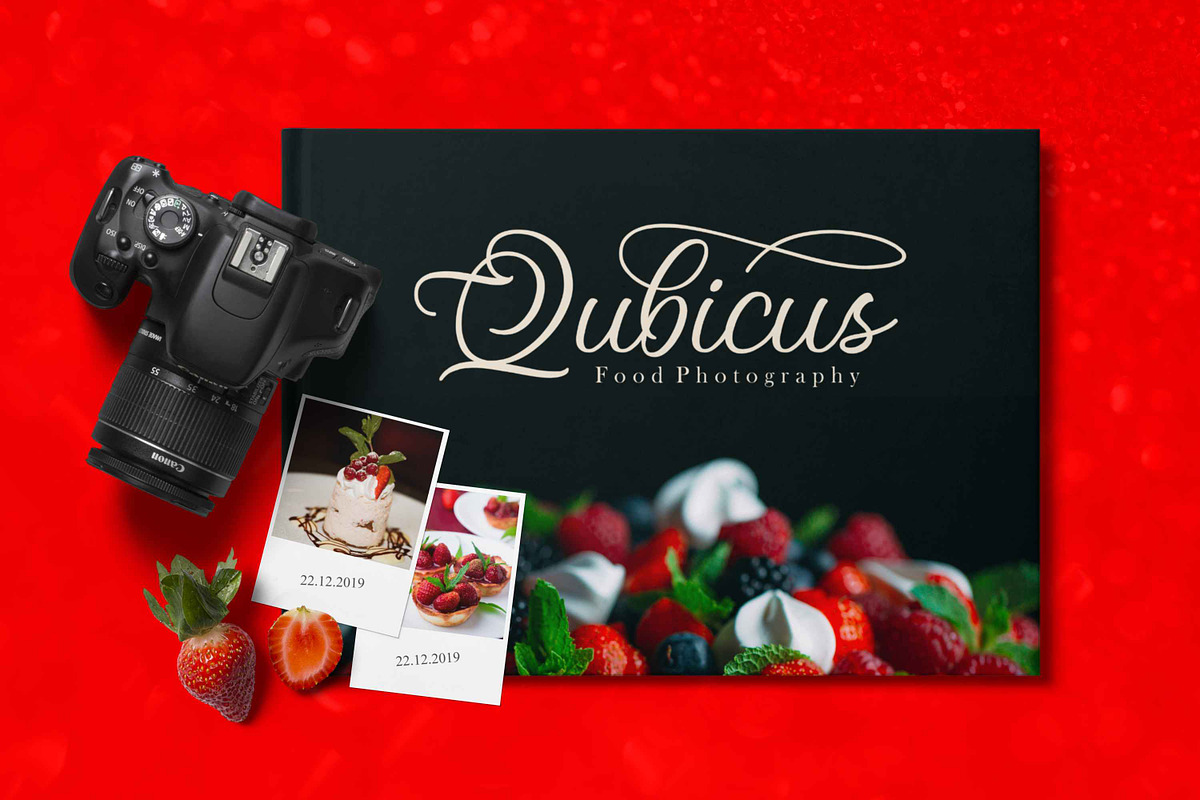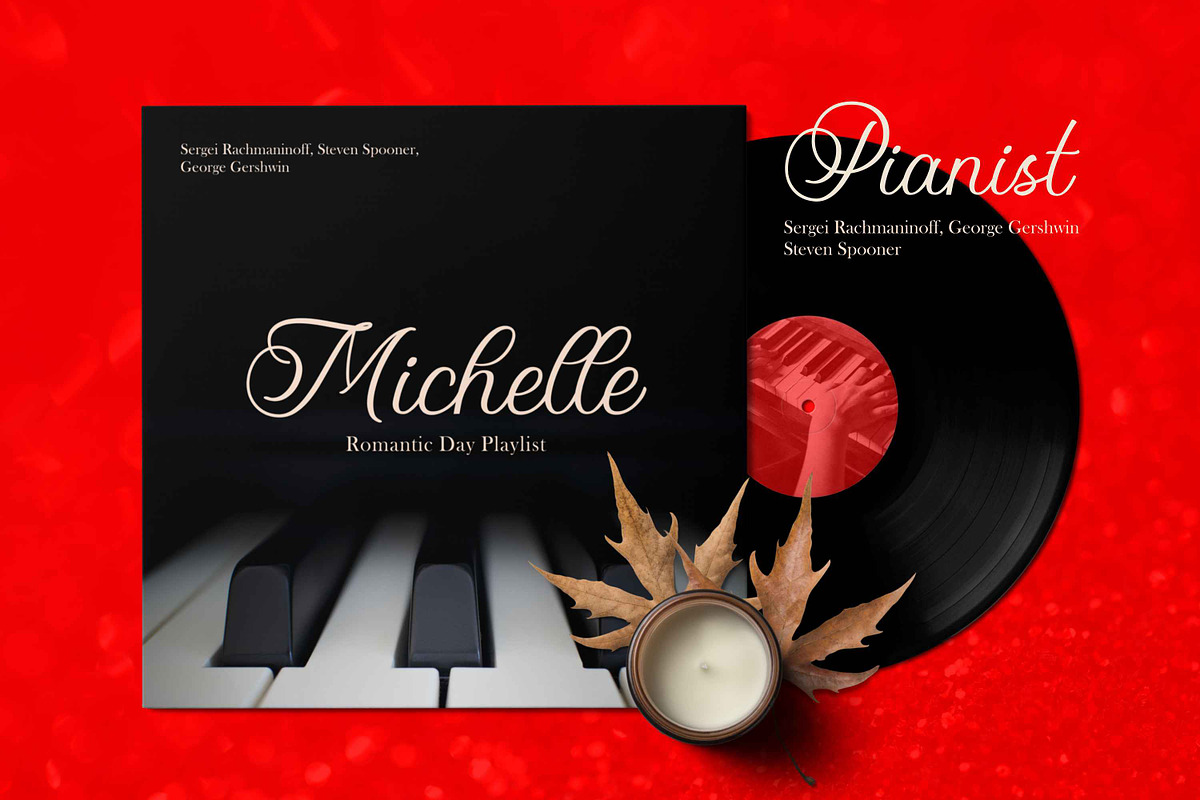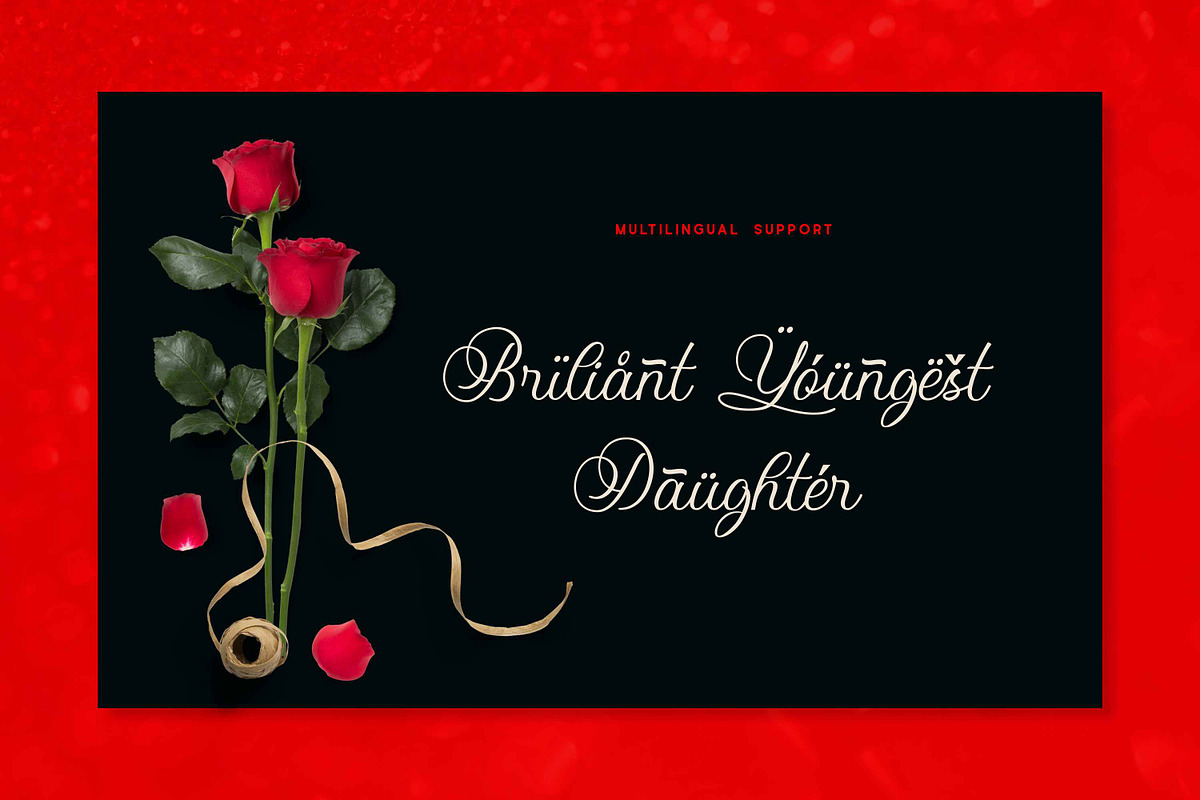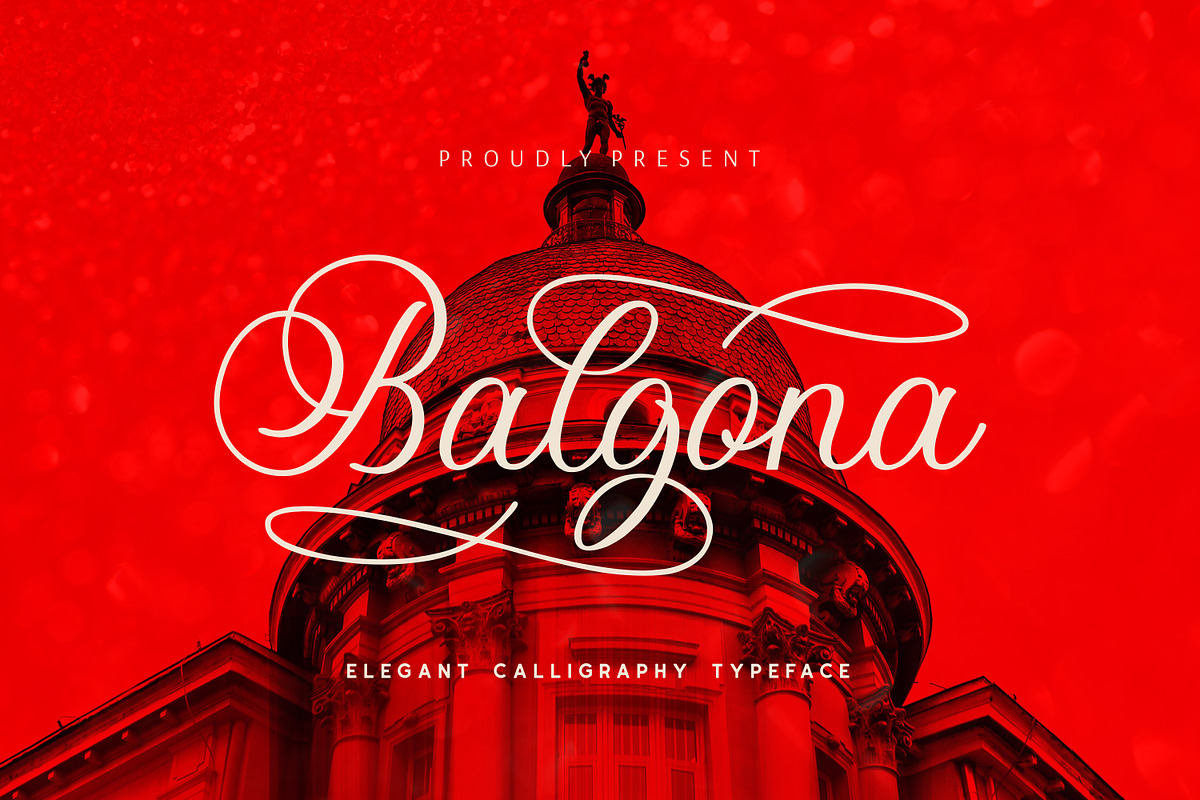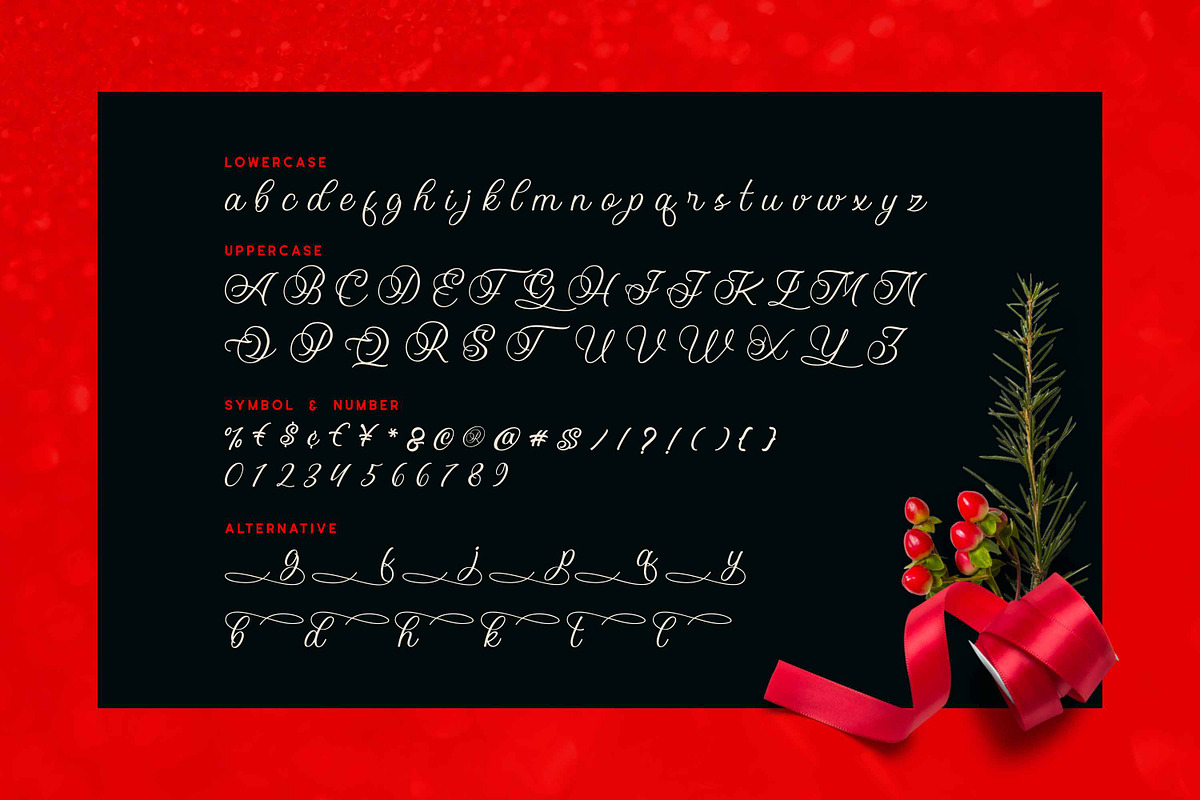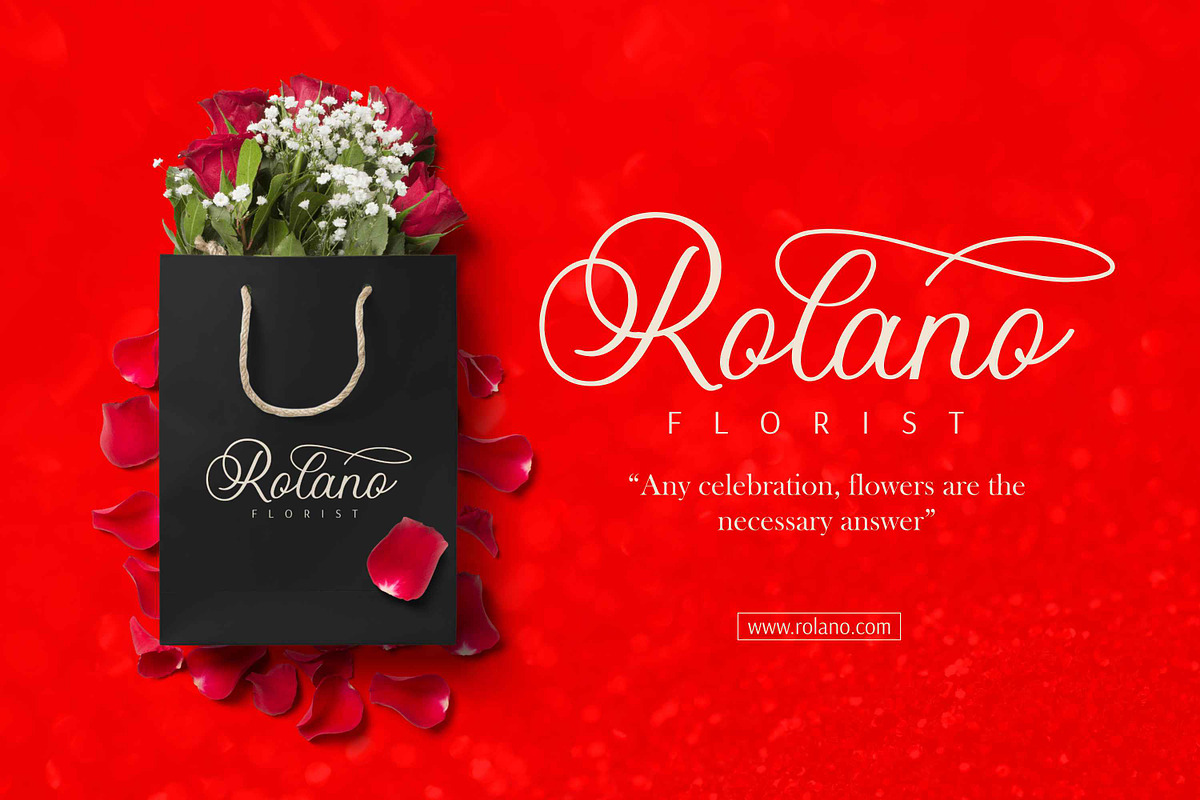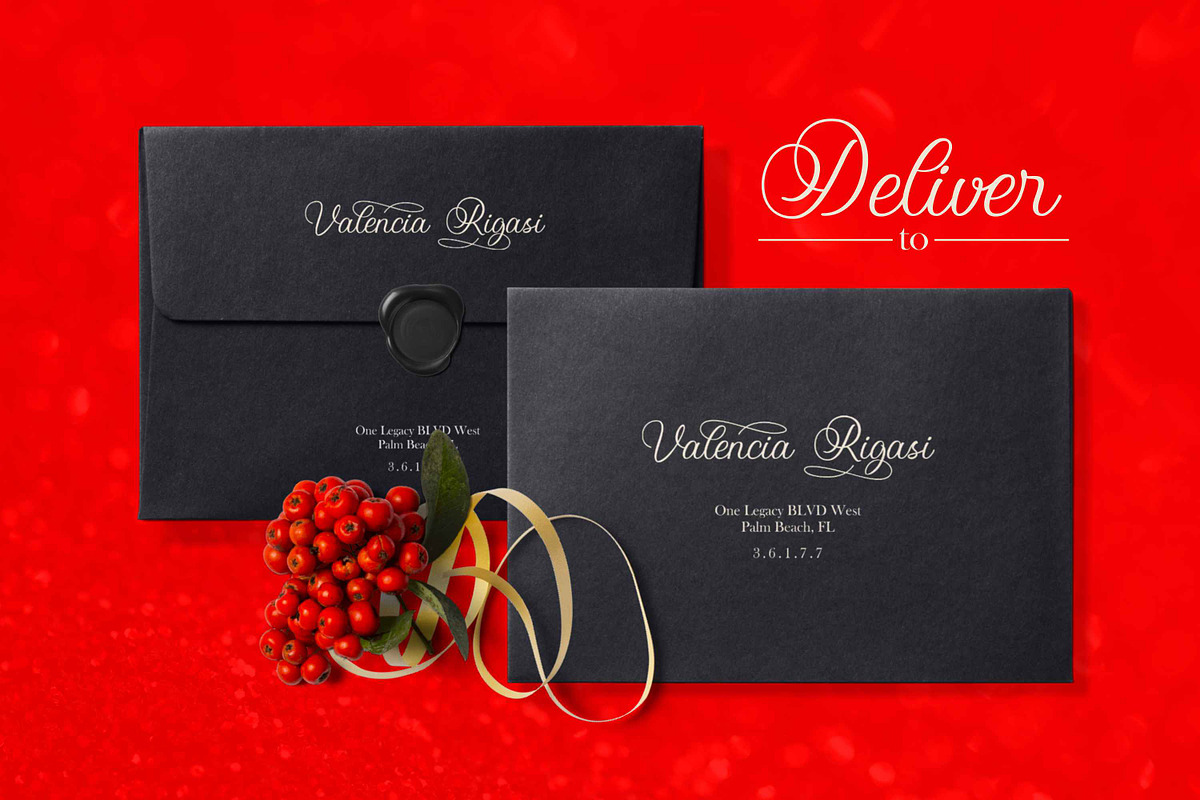
Balgona - Elegant Calligraphy Font
Balgona Elegant Calligraphy Typeface, Opentype features with stylistic Alternates. A beautiful collection of modern calligraphy fonts cover design using Balgona font would look beautiful, elegant, luxurious, and classy. The Balgona Font is the great choice for photography, vinyl cover, quotes, album cover, wedding, and many other design project.
- Balgona Elegant Calligraphy Typeface, Opentype features with stylistic Alternates.
Why Balgona - Elegant Calligraphy Font is worth a look
Balgona - Elegant Calligraphy Font by Fype Co. fits naturally into Branding, posters, packaging, typography.